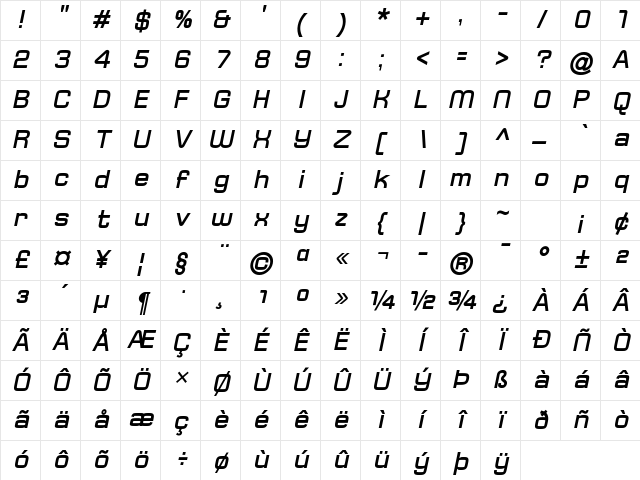
Typo Square Bold Italic Demo Regular
Foundry: StudioTypo
Designer: MEHMET ABACI
Design Context for Typo Square Bold Italic Demo
Typo Square Bold Italic Demo is a composed and adaptable typeface that performs quietly and consistently across a wide range of design contexts. The slanted form adds forward momentum and visual energy. Its bold stroke weight gives it real presence on the page.